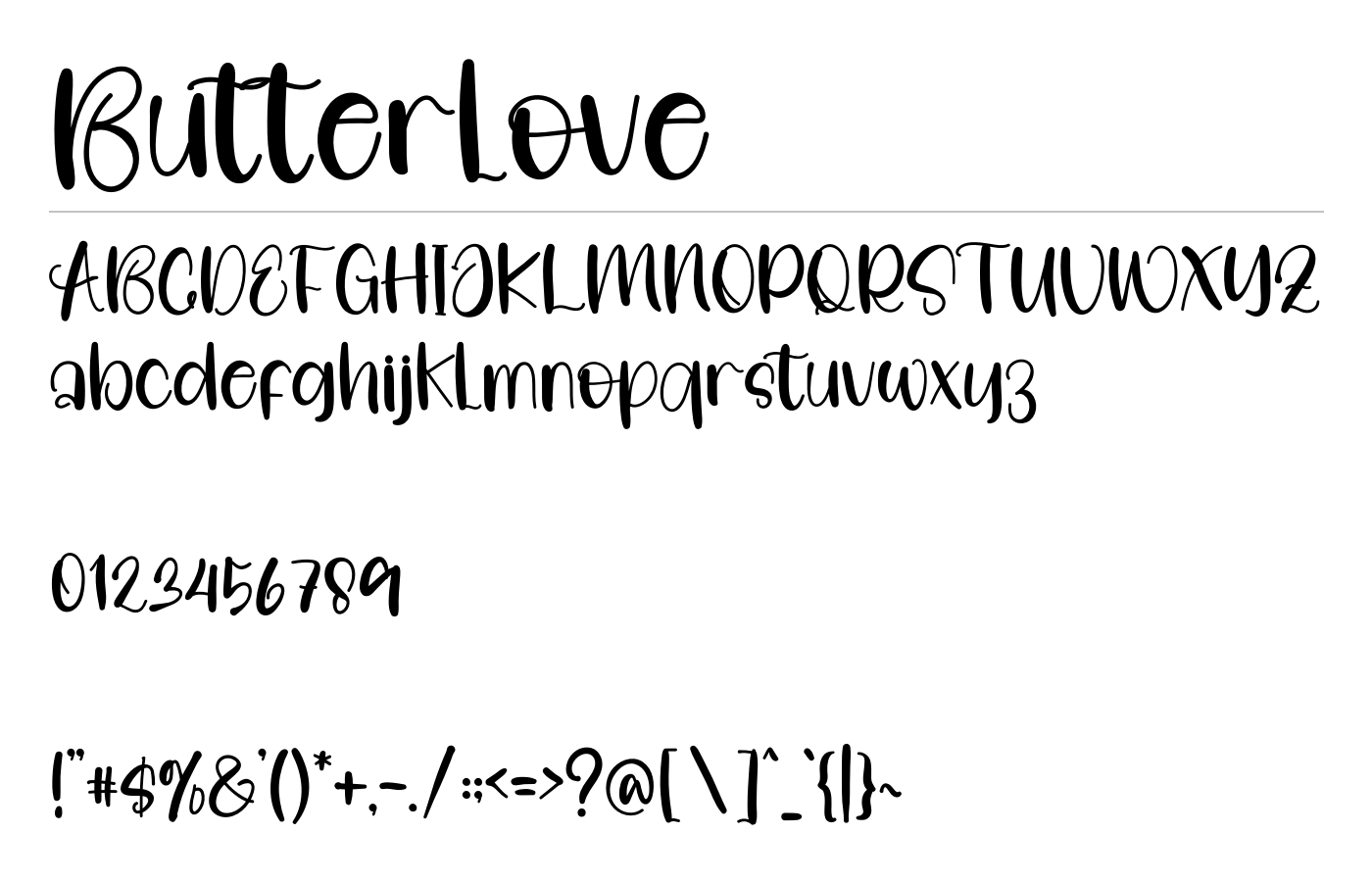
Butterlove is a playful and charming handwritten script font with a casual, friendly feel. Its rounded, slightly irregular letterforms and moderate contrast bring warmth and personality, making it perfect for creative projects, invitations, and branding that needs a personal touch. This font works well for headlines, logos, and designs that want to convey approachability and fun without losing readability.
Butterlove Font
About Butterlove Font